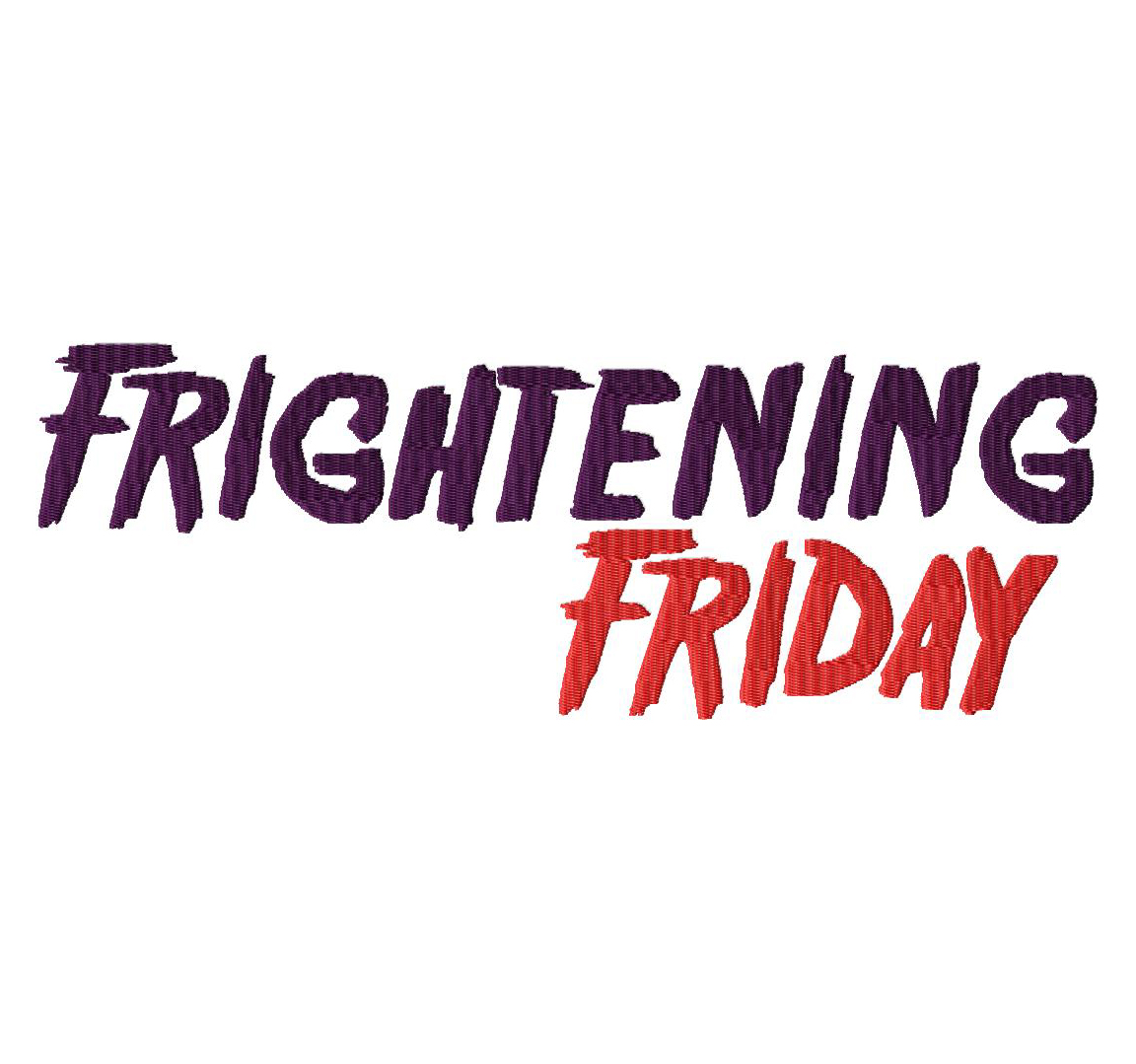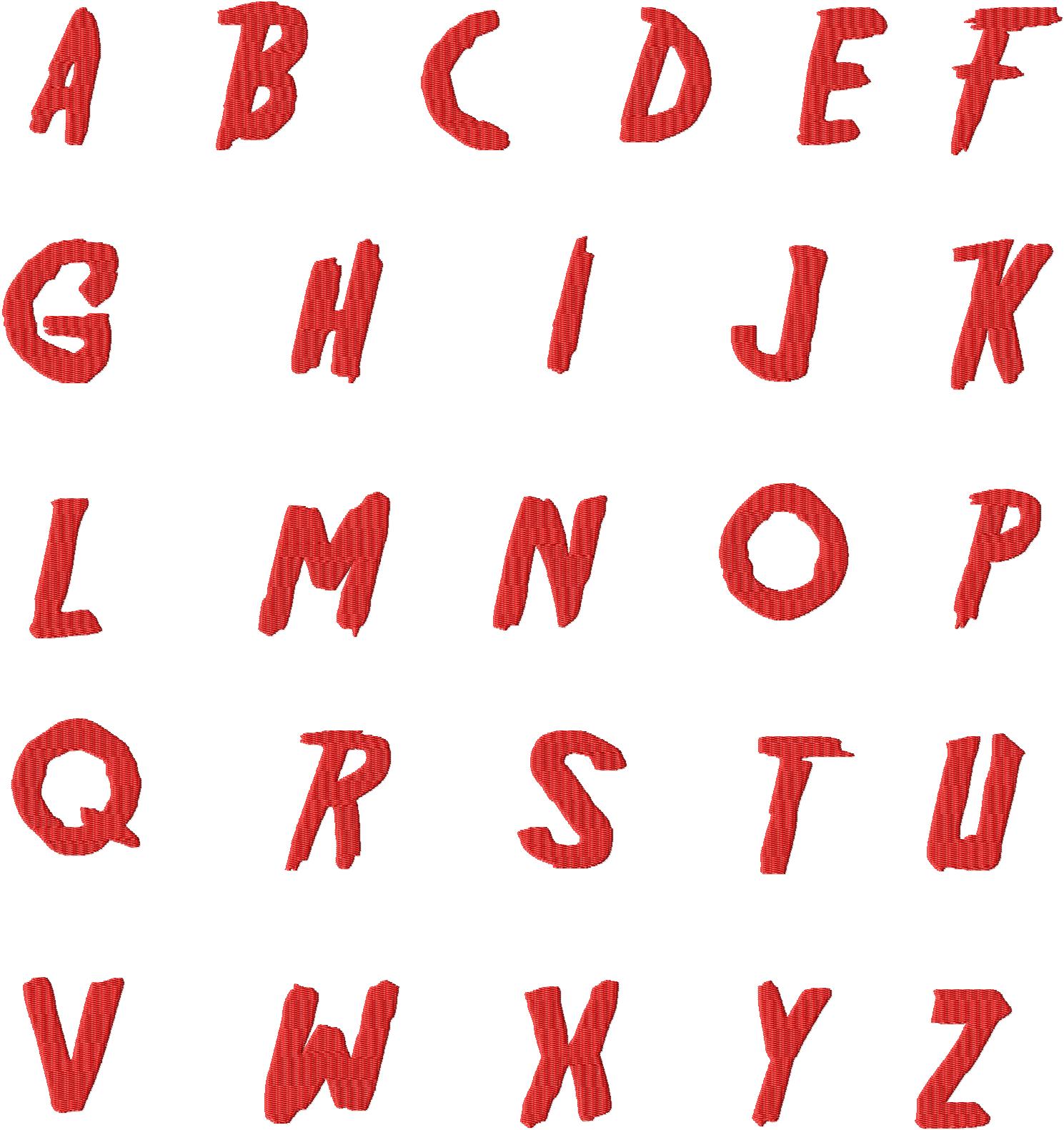
Frightening Friday Halloween inspired Machine Embroidery Font Set
This spooky font is sure to create screams when you personalize all your favorite scary projects. Great for Halloween Monogramming. Includes all 26 letters and all of the following sizes: 1″ 2″ and 3″
This spooky font is sure to create screams when you personalize all your favorite scary projects. Great for Halloween Monogramming. Includes all 26 letters and all of the following sizes: 1" 2" and 3"